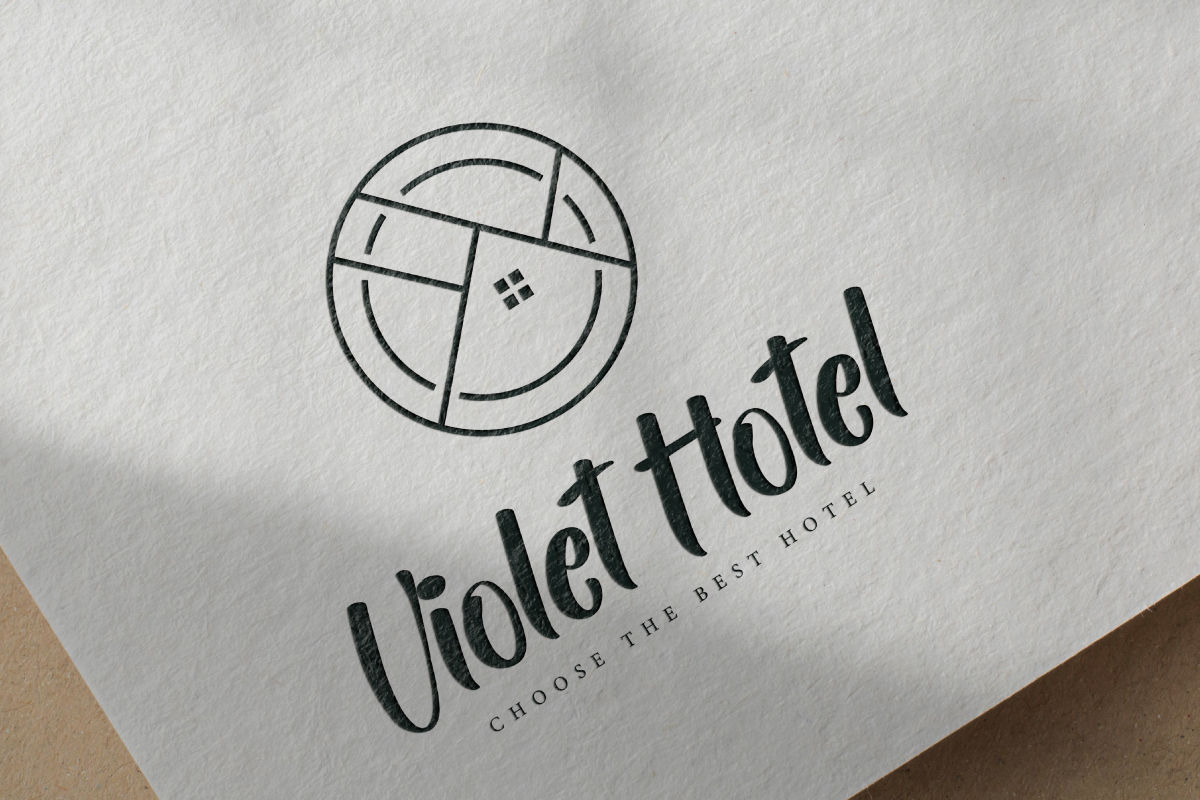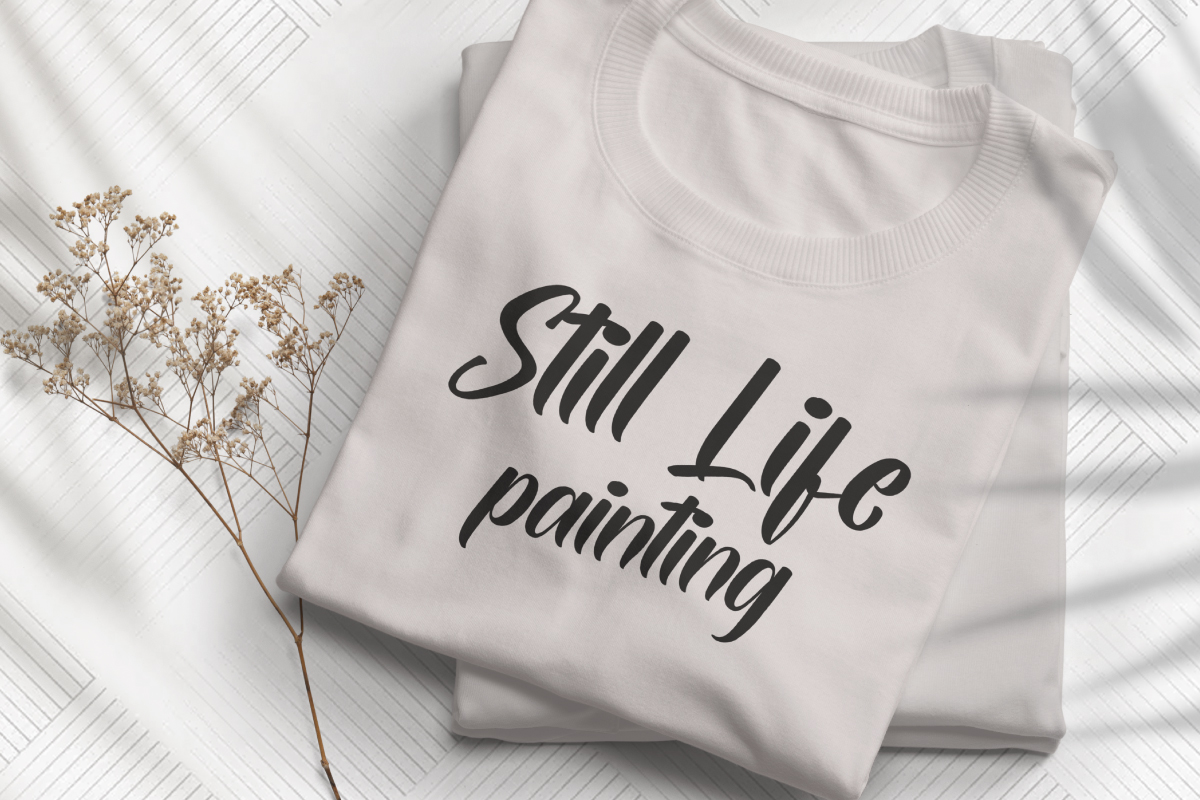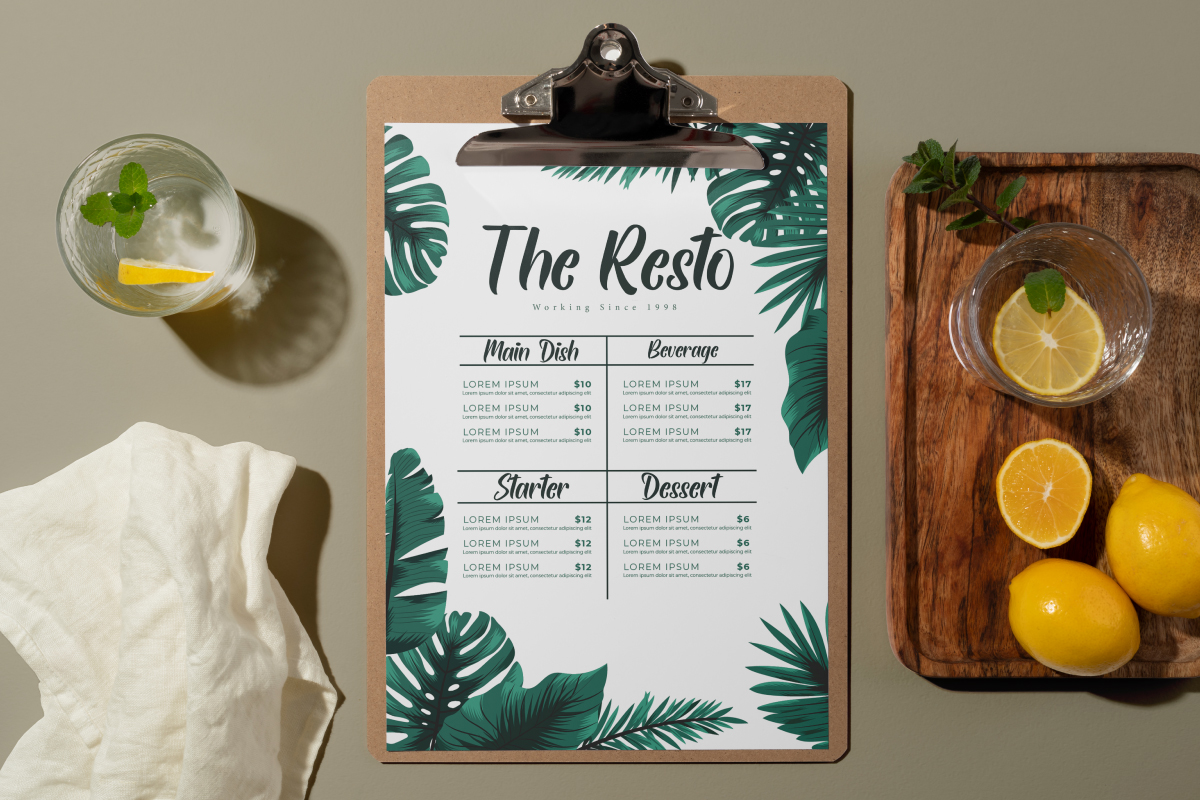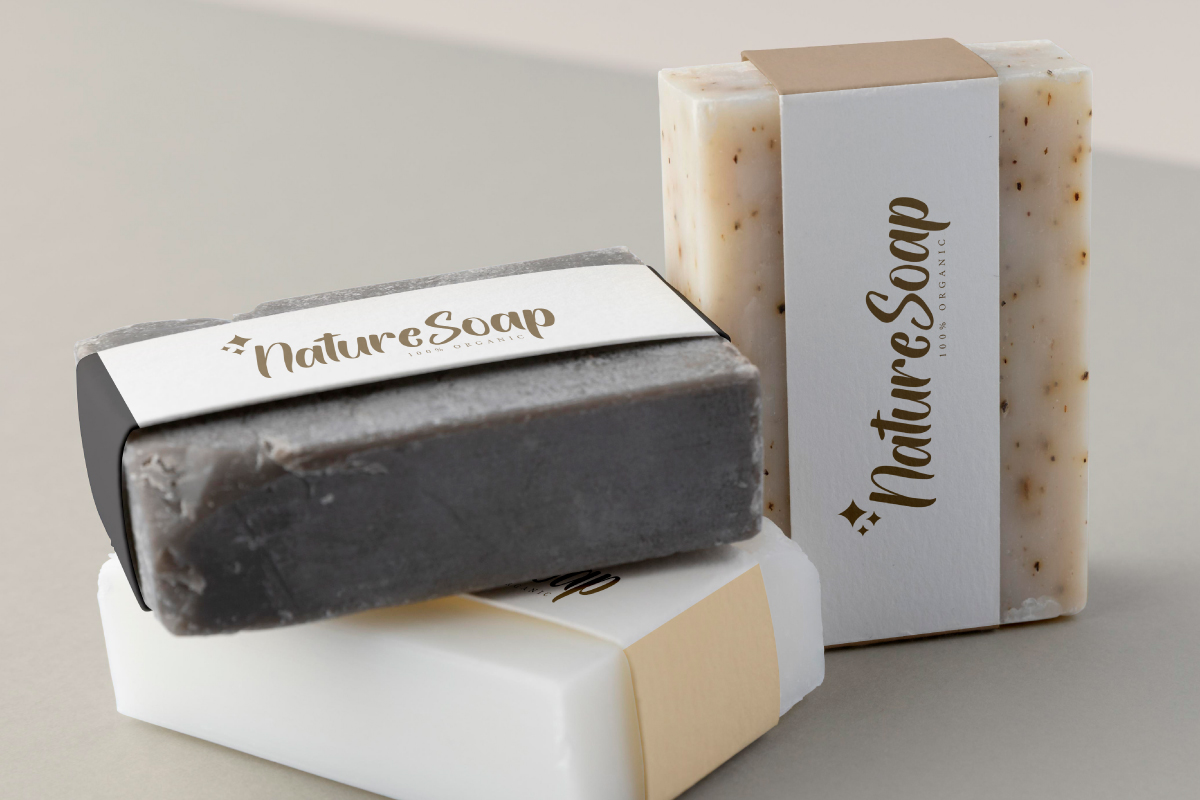
Reminder Caution Font
Reminder Caution Script Font
It’s a casual calligraphy script font, created by EdricStudio. This font has a different thickness in each letter which is still easy to read and will be suitable for any industry, such as art gallery, boutique, cosmetic, homeware, hotel, jewelry, photography, restaurant, spa salon, and anything that requires a script style with stylish look.
Reminder Caution Font comes with a full set of Uppercase and Lowercase Basic Characters, Number, a large range of Punctuation and Symbol. It has a stunning characters set, perfectly managed with well spaced and kerning. Reminder Caution Font will be great for any projects (with extended license) including: brand logo, labels, menu, mockup design, price tag, screen printing, stationery, title, website, etc.